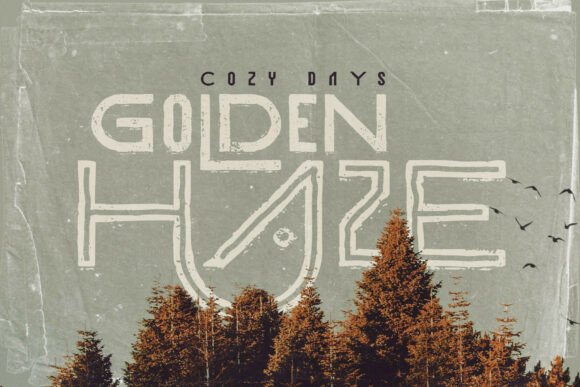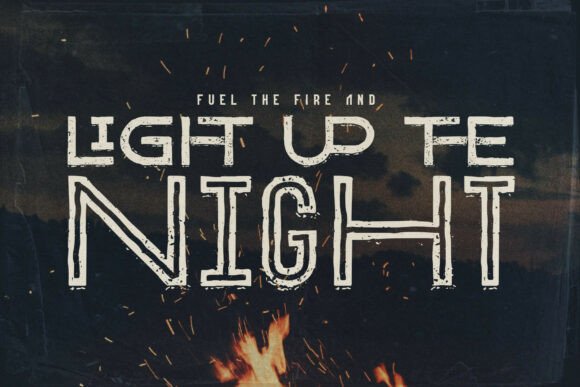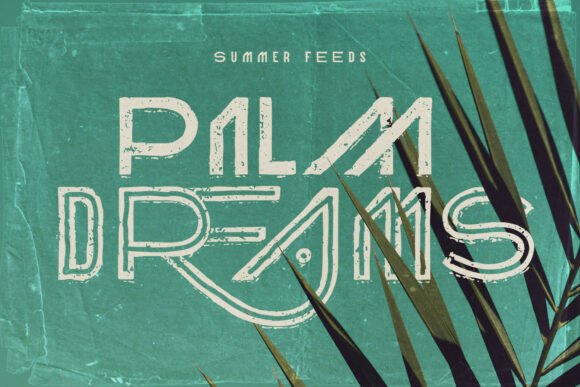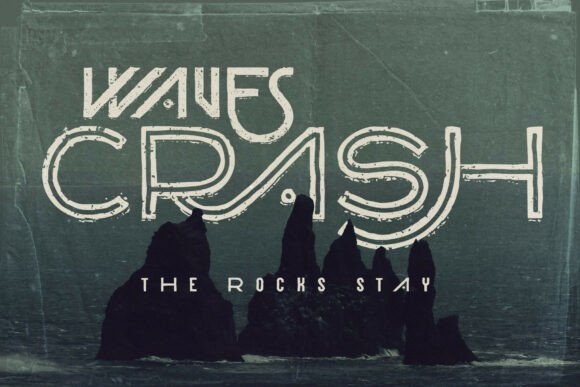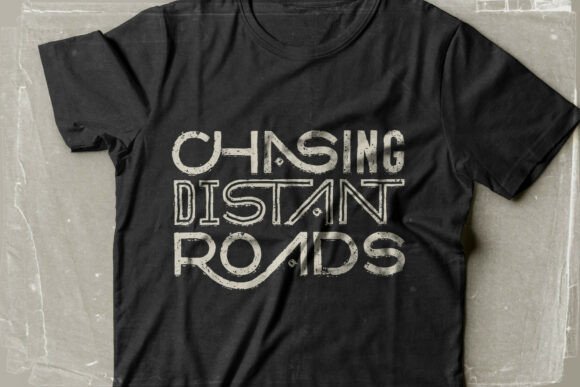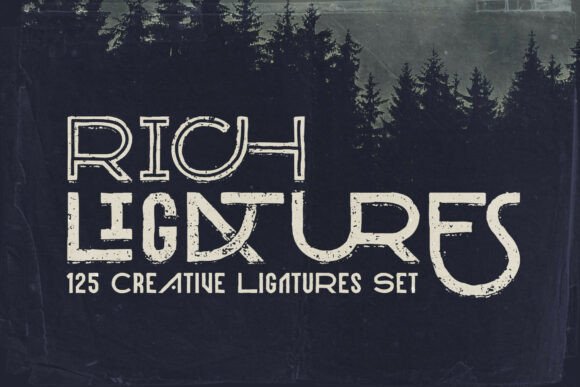
Discover the Raw Power of Burning Radfort: A Handcrafted Sans-Serif Font
I’ll never forget the design project that led me to Burning Radfort. I was working on a bold, edgy branding campaign for a streetwear client, and I needed a font that could deliver a powerful, in-your-face presence. After scouring the internet for hours, I stumbled upon Burning Radfort, and it was love at first sight. This handcrafted, textured sans-serif typeface was exactly what I needed to bring my design to life.
What Makes Burning Radfort Special?
Burning Radfort is more than just a font – it’s a statement piece. With its raw grit and refined structural balance, this typeface blends bold imperfection with industrial-inspired curves, giving it a rebellious yet intentional personality. The font comes in three variations, with a total of 344 glyphs and 125 dynamic ligatures, offering endless creative possibilities.
- ✨ Unique texture and distressed finish: The gritty strokes and subtle erosion give Burning Radfort a one-of-a-kind look that’s perfect for bold headlines and attention-grabbing designs.
- ✅ Highly versatile: With three font variations and 125 dynamic ligatures, you can experiment with different styles and compositions to achieve a unique look.
- 🔥 Perfect for display text: Burning Radfort shines in large sizes, making it ideal for posters, t-shirt prints, and other display text applications.
- 🤔 Limited use for body text: Due to its textured and distressed nature, Burning Radfort may not be the best choice for body text or small font sizes.
The Story Behind Burning Radfort
Burning Radfort was designed with the intention of creating a font that embodies the spirit of rebellion and nonconformity. The designer, inspired by the raw energy of street art and industrial design, set out to create a typeface that would capture the essence of bold imperfection. The result is a font that’s both gritty and refined, perfect for designers who want to add a touch of edginess to their work.
Q: What is the best way to use Burning Radfort?
A: Burning Radfort is best used for display text, such as headlines, posters, and t-shirt prints. It’s not recommended for body text or small font sizes.